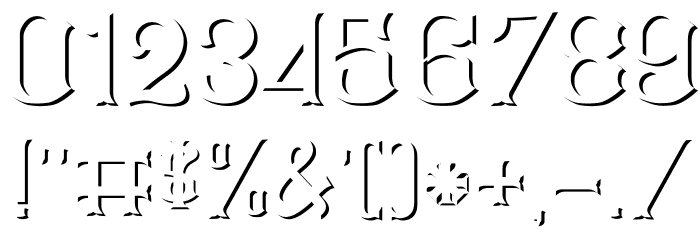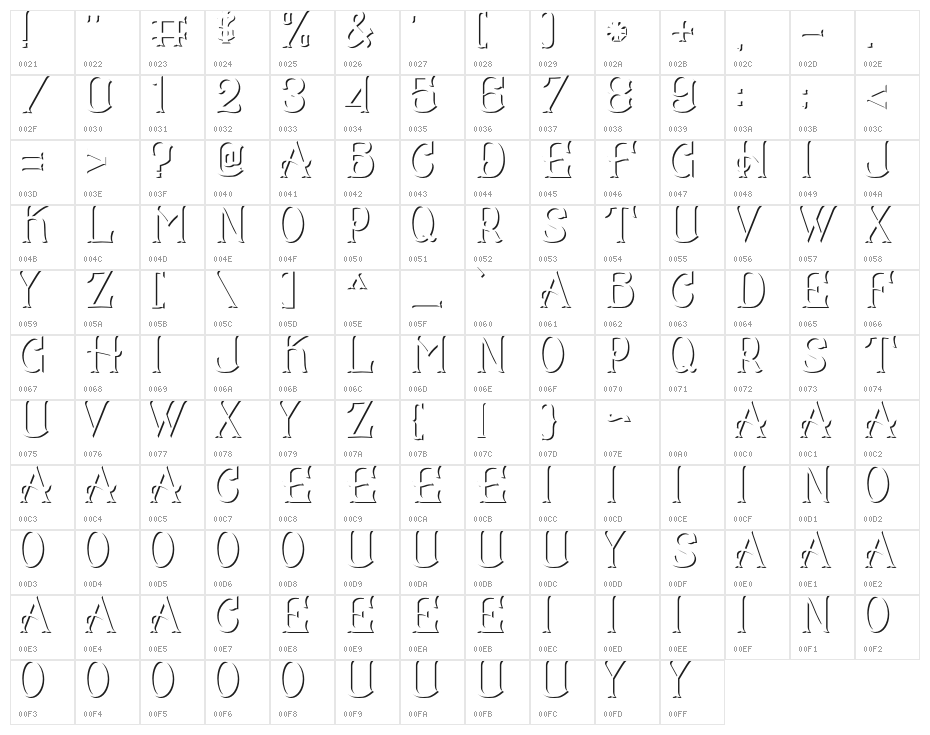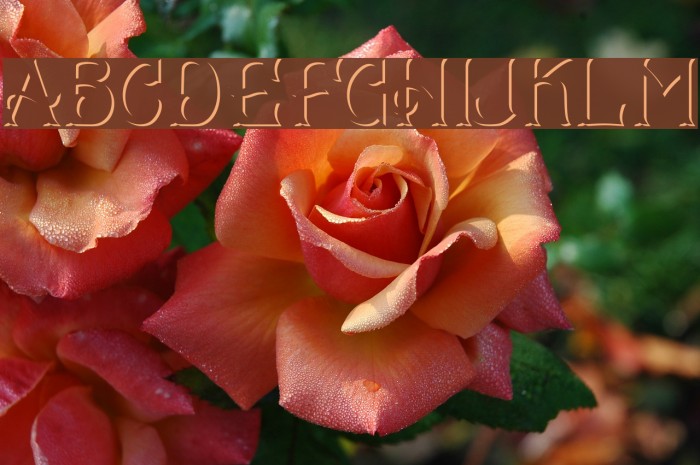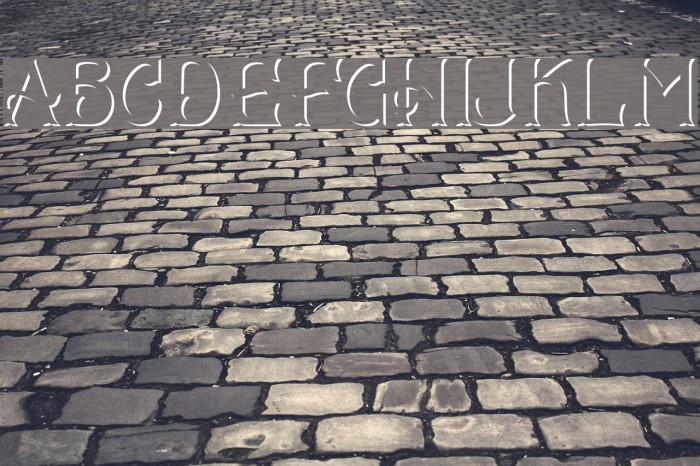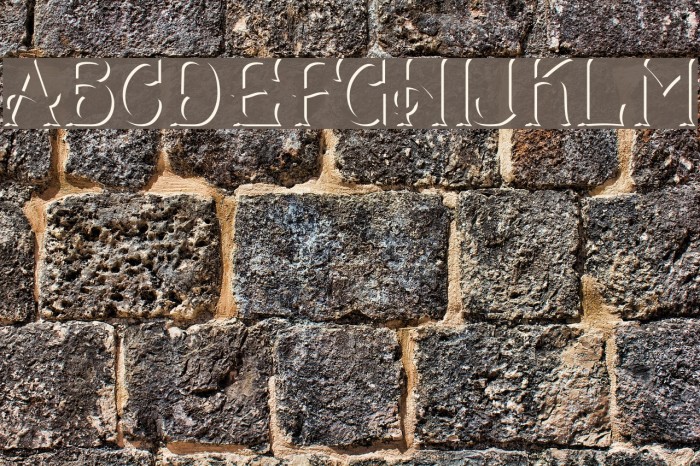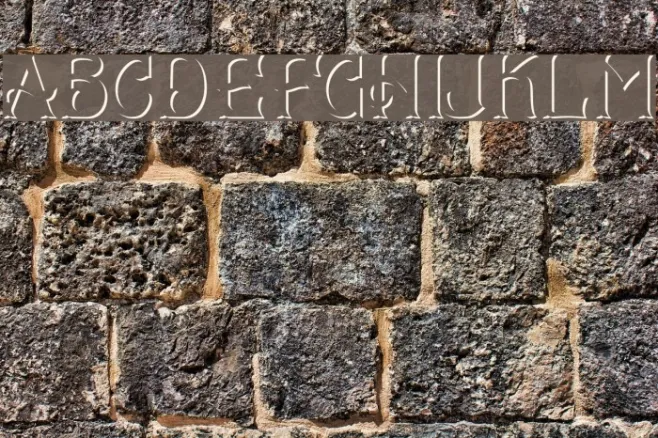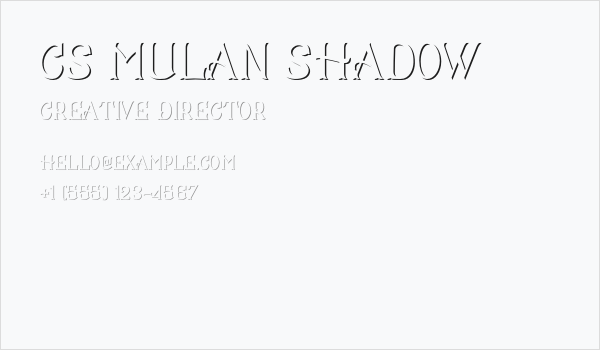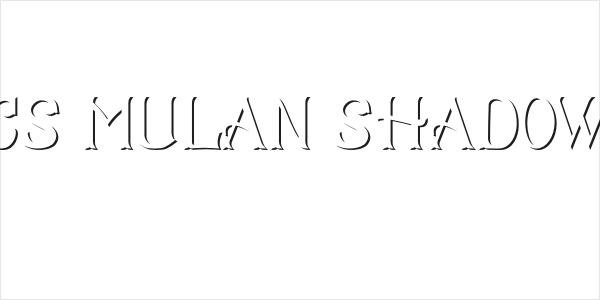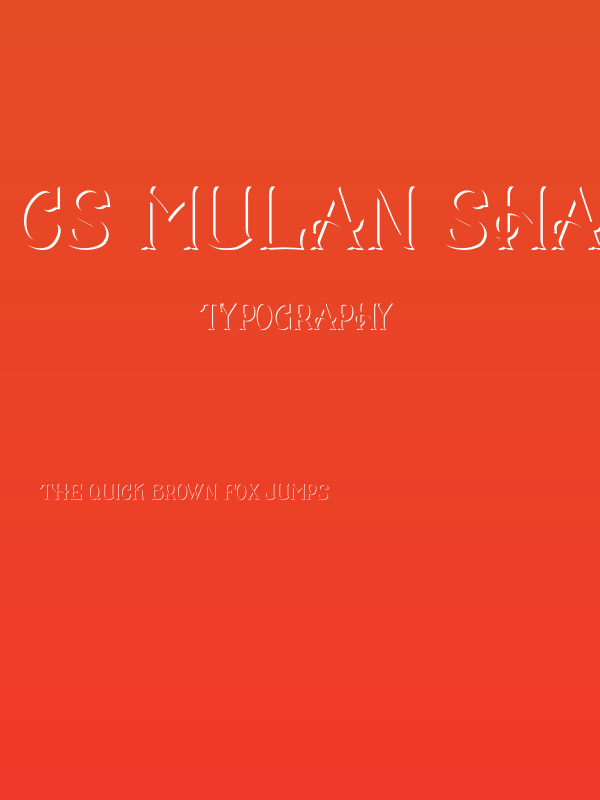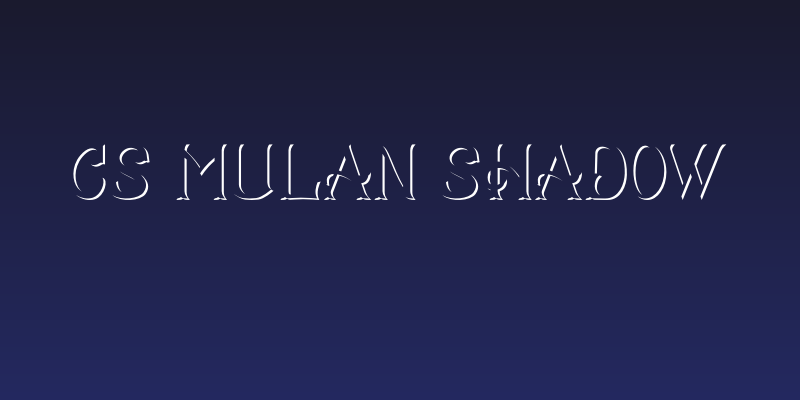
CS Mulan Shadow Font
CS Mulan Shadow Description
This font features a unique shadow effect that gives it a three-dimensional appearance. The characters are bold and have a distinct cut-out style, creating a sense of depth and intrigue. The uppercase and lowercase letters maintain a consistent design, with sharp edges and clean lines. The numerals and special characters follow the same aesthetic, ensuring a cohesive look across all text. This font is ideal for making a statement, with its eye-catching and artistic design.
| Proposed Projects | Perfect for posters, logos, and headlines where a dramatic and artistic flair is desired. |